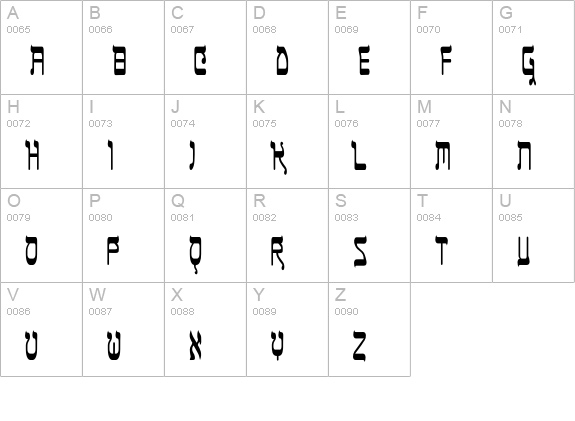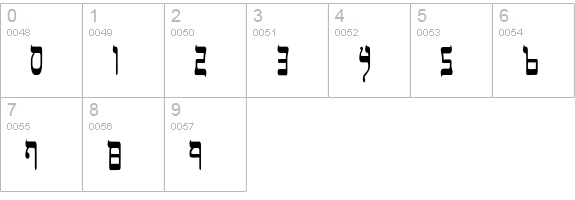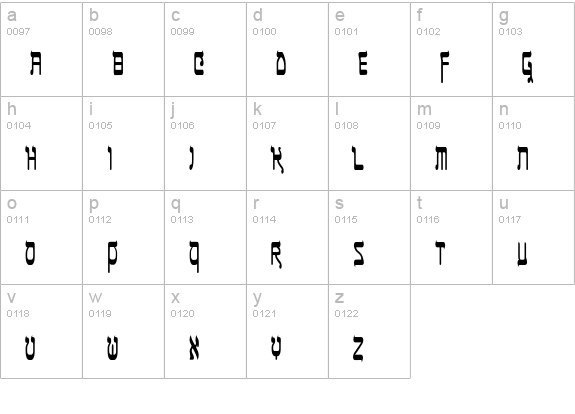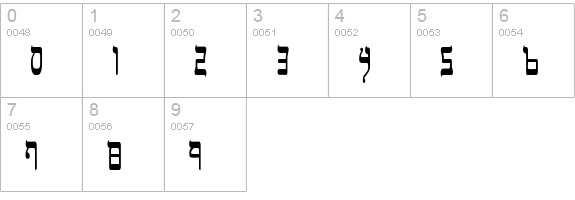
Cubredo Font Details
Introducing Cubredo font, a modern and versatile typeface that combines elegance with a touch of whimsy. With its clean lines and playful curves, Cubredo is perfect for a wide range of design projects, from branding to editorial design. This font features a unique blend of classic sophistication and contemporary flair, making it an ideal choice for both digital and print applications. But the best part? Cubredo font is available for free download at FontsMarket.com. That's right, you can easily access this stylish font at no cost, allowing you to elevate your designs without breaking the bank. Don't miss out on the opportunity to add Cubredo to your font collection and bring a fresh and stylish vibe to your next project. Download Cubredo now and let your creativity shine!